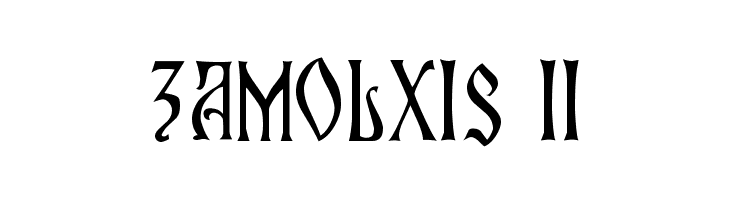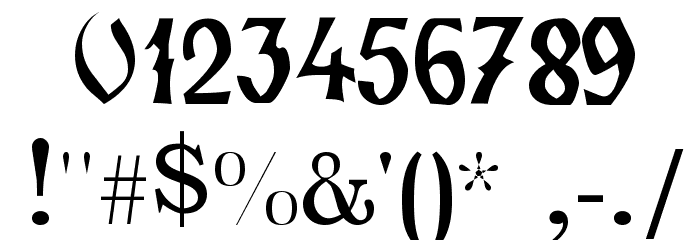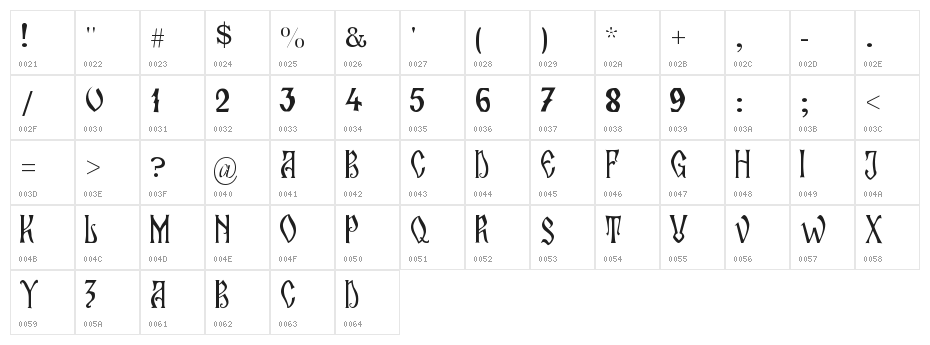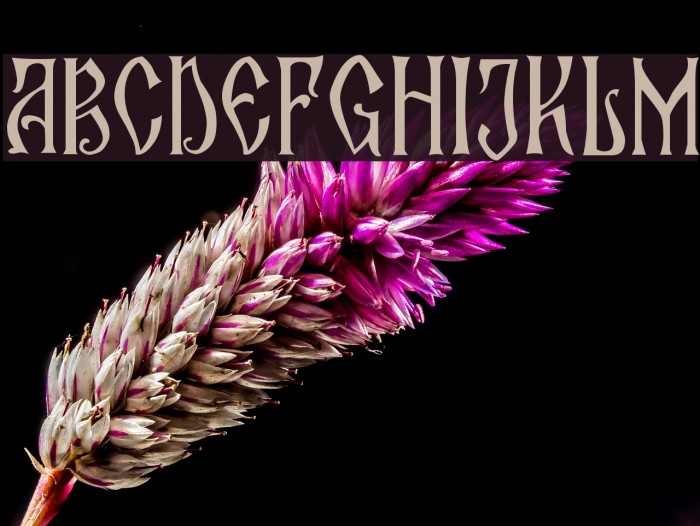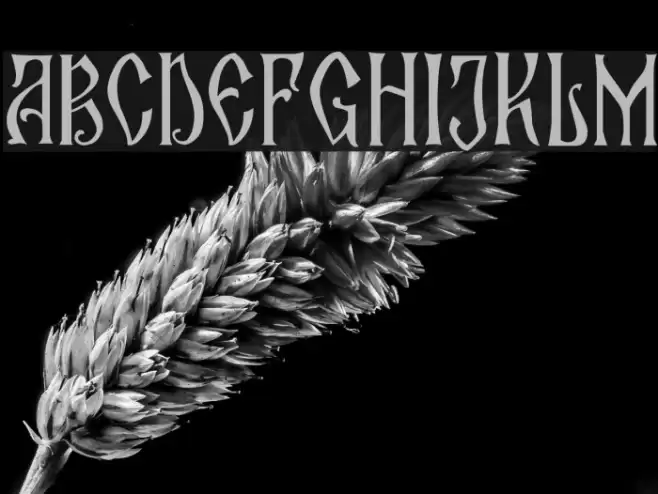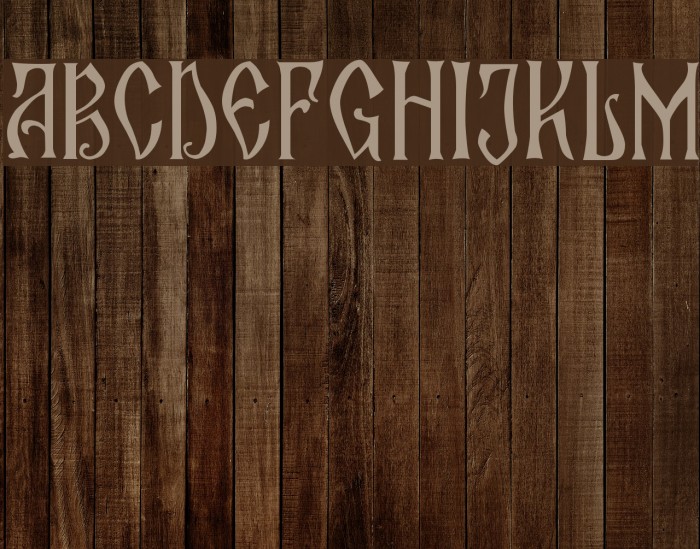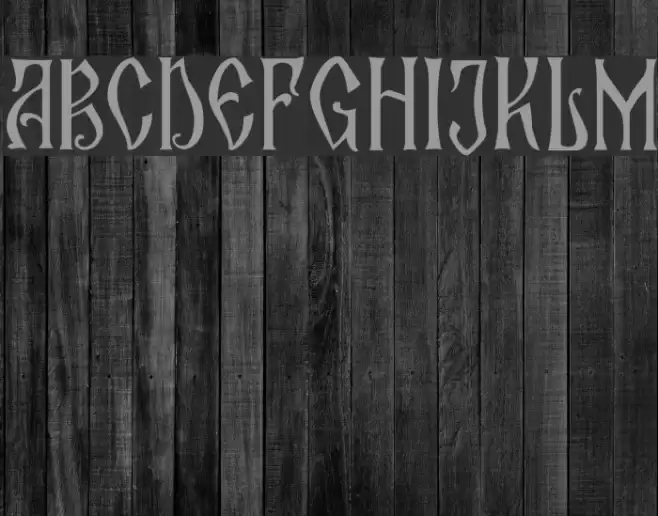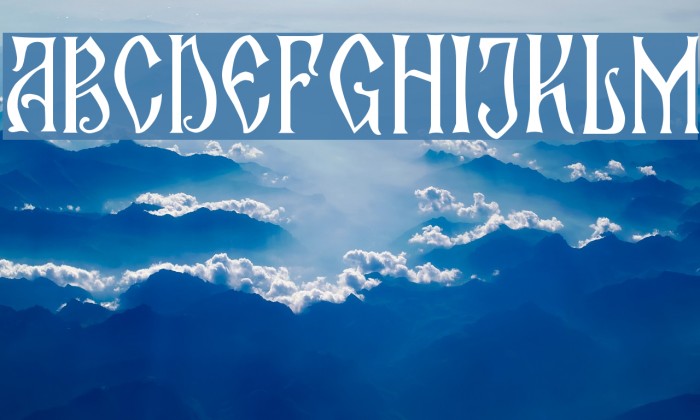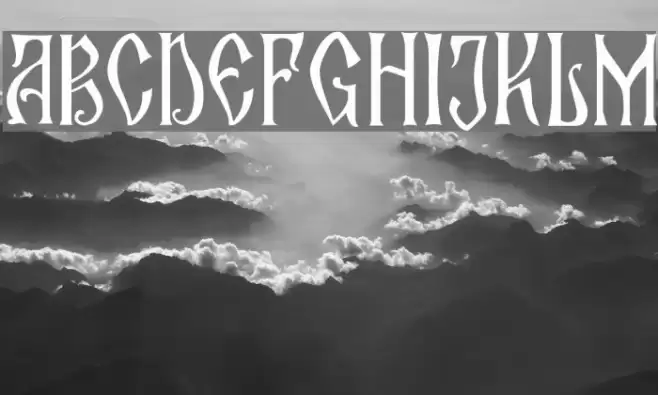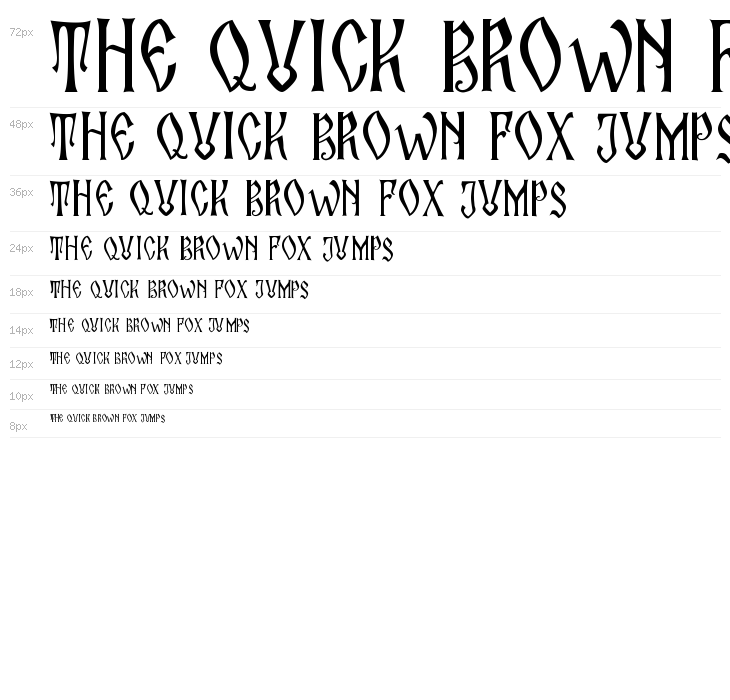
Zamolxis II Font
Zamolxis II Description
This font features a unique and artistic design, characterized by its decorative and slightly gothic style. The uppercase letters exhibit a blend of sharp angles and smooth curves, creating a dynamic and eye-catching appearance. The lowercase letters maintain a consistent style, with some characters incorporating distinctive flourishes. Numbers are bold and maintain the same stylistic elements, ensuring uniformity across all characters. Special characters are designed to complement the overall aesthetic, adding to the font's versatility. The font's intricate details make it suitable for projects that require a touch of elegance and creativity.